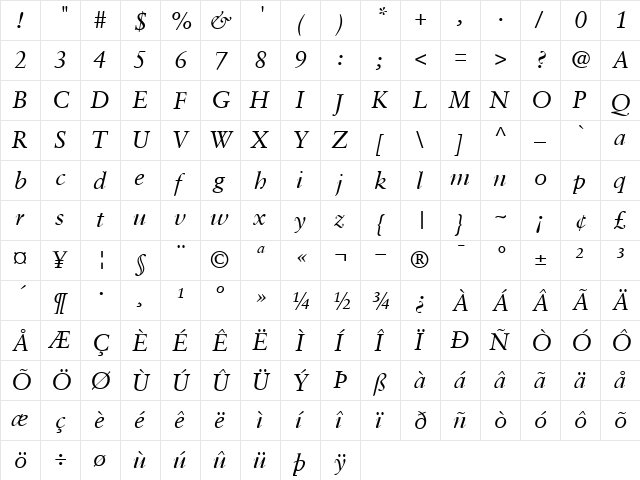
Sabon Italic
Design Context for Sabon Typeface
Sabon is a composed and adaptable typeface that performs quietly and consistently across a wide range of design contexts. The dynamic lean of this cut emphasises speed and emphasis in any layout.
Pro Tip: Use Sabon for emphasis, pull quotes, and subheadings where its slanted energy can add rhythm to the layout.